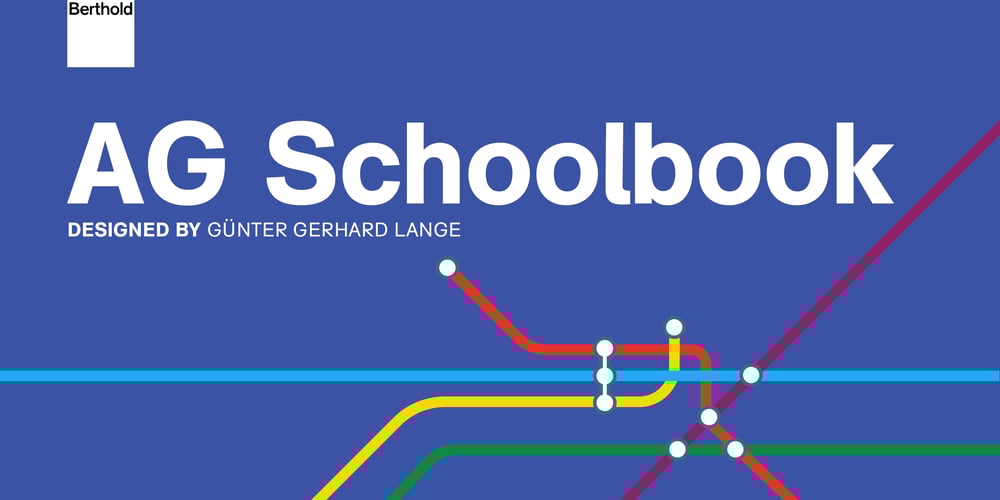
AG Schoolbook Font Family was designed by Günter Gerhard Lange and published by Berthold. AG Schoolbook contains 2 styles and family package options. Günter Gerhard Lange redrew the Akzidenz-Grotesk family and H. Berthold released it as AG Schoolbook in 1983. This more contemporary version of the Akzidenz-Grotesk design offers distinctive, alternate characters for a, k, l, u, y, G, I, J, K, M and R. AG Schoolbook is known for its clarity and legibility.